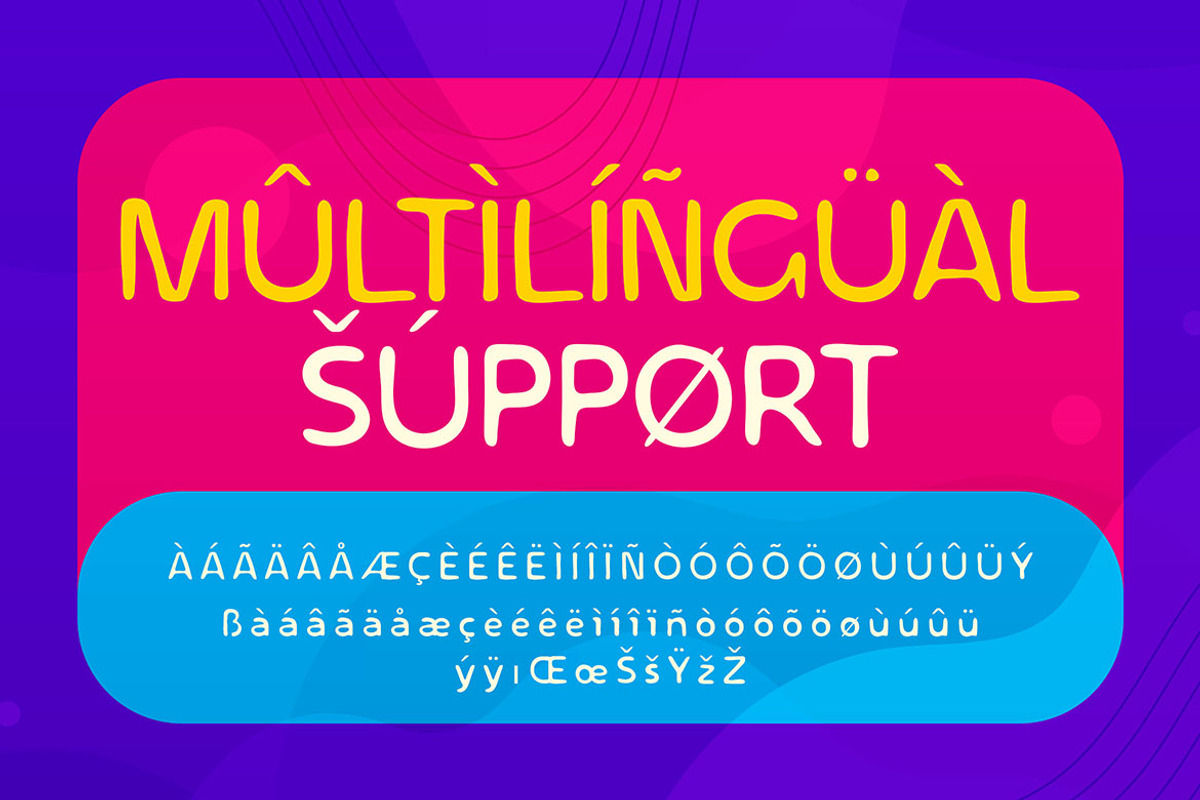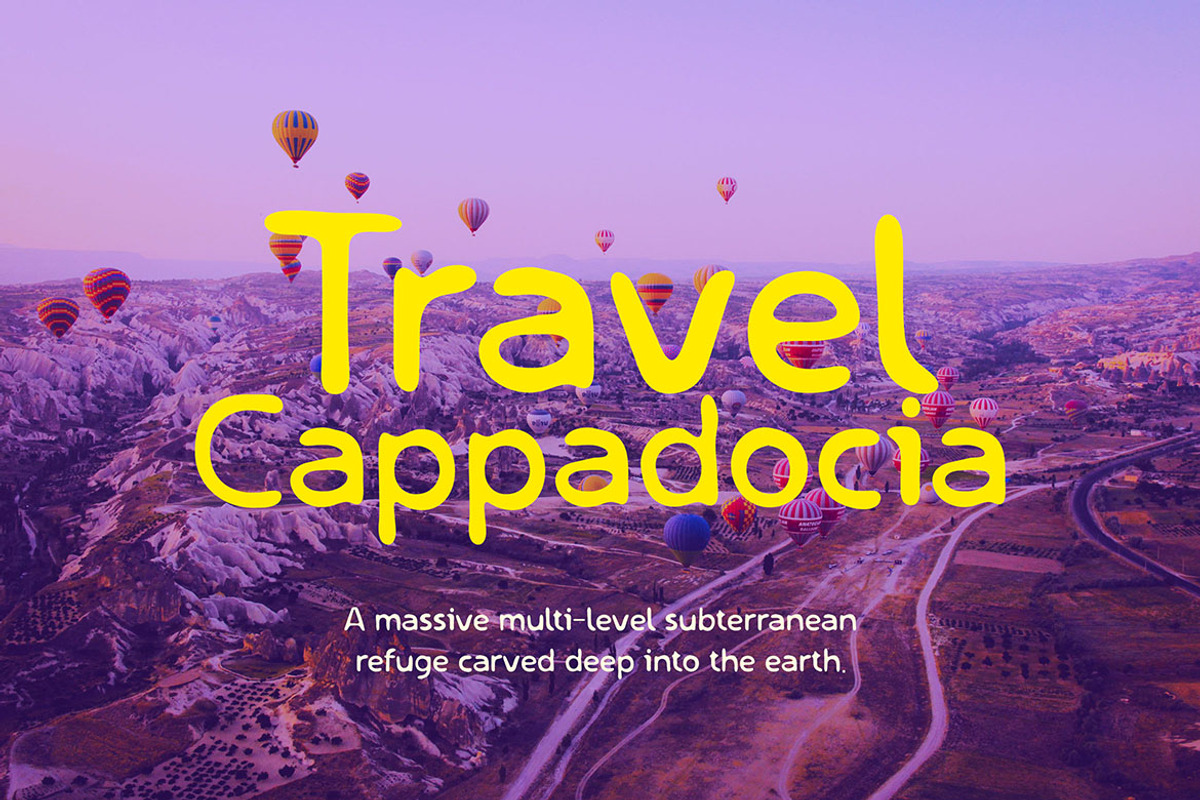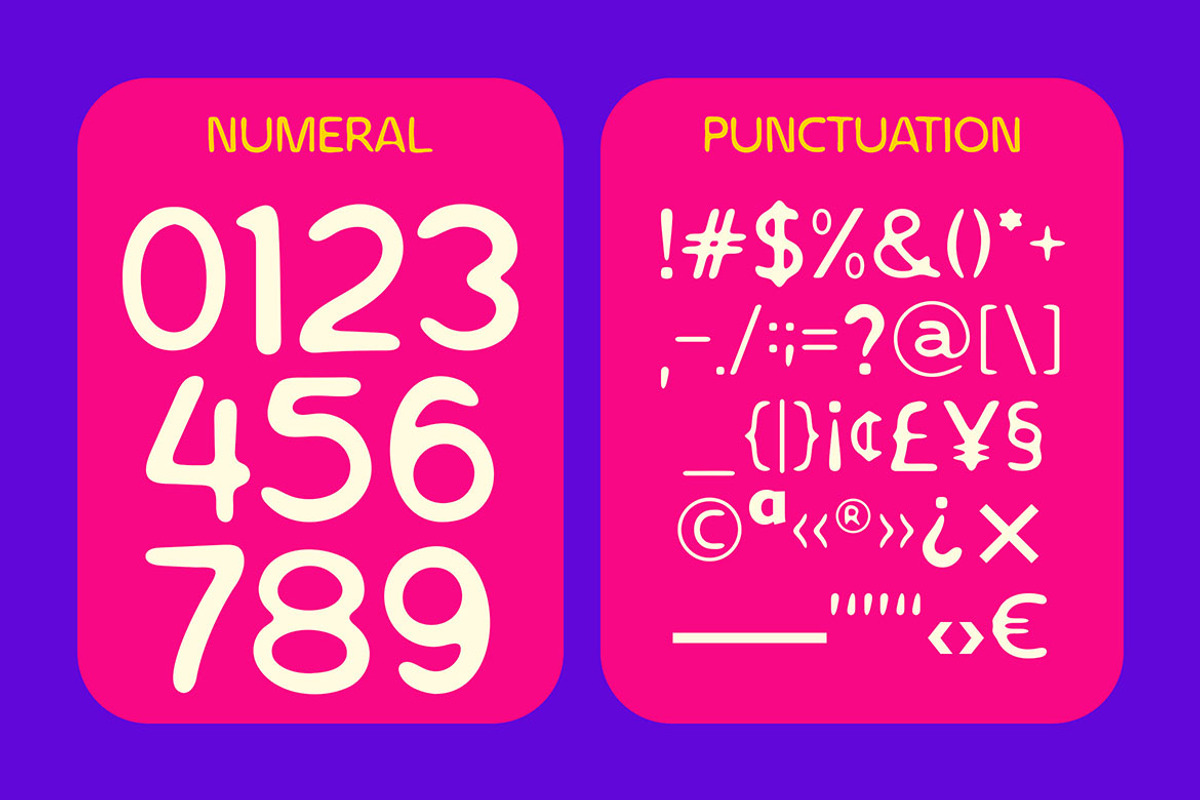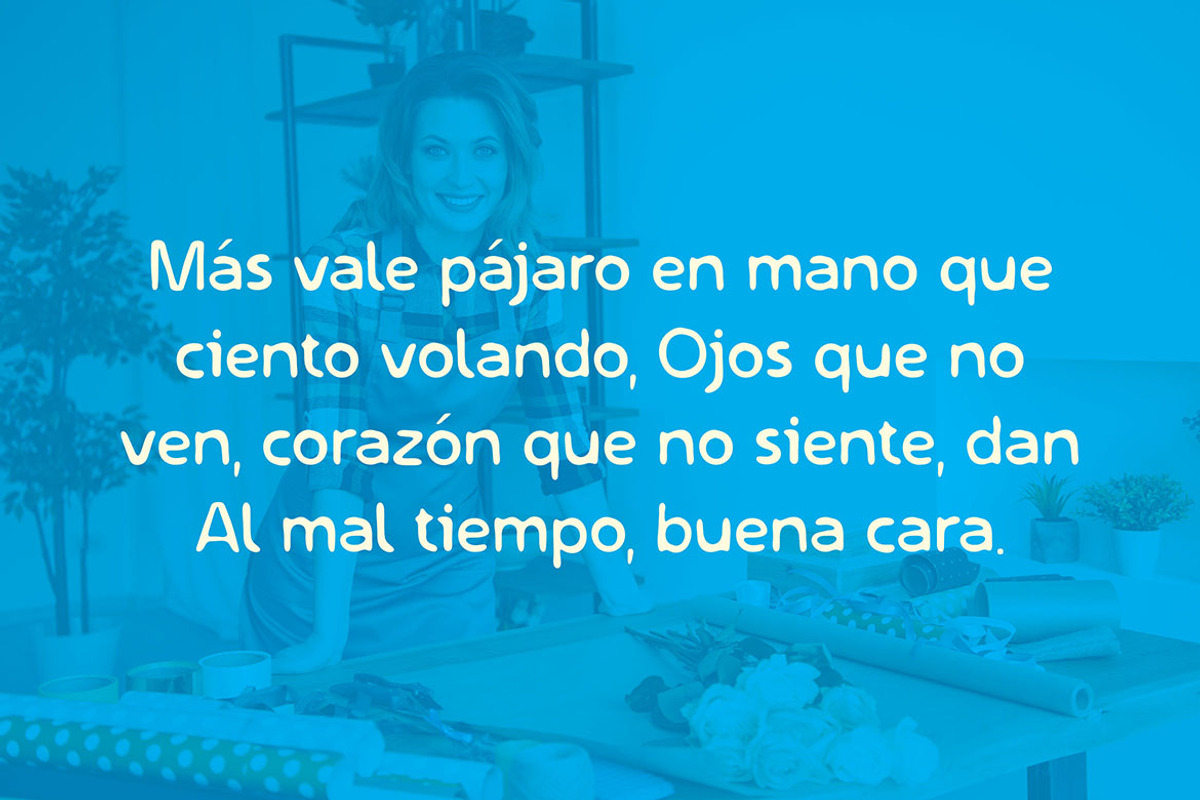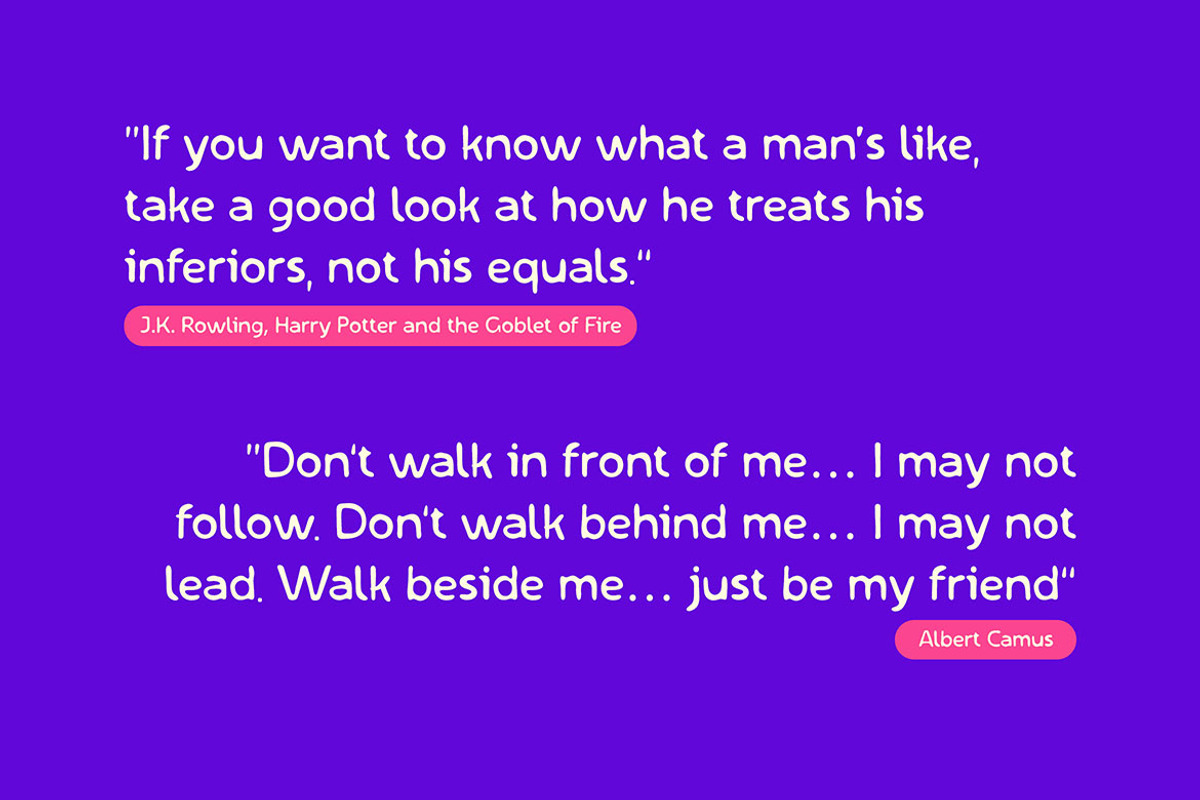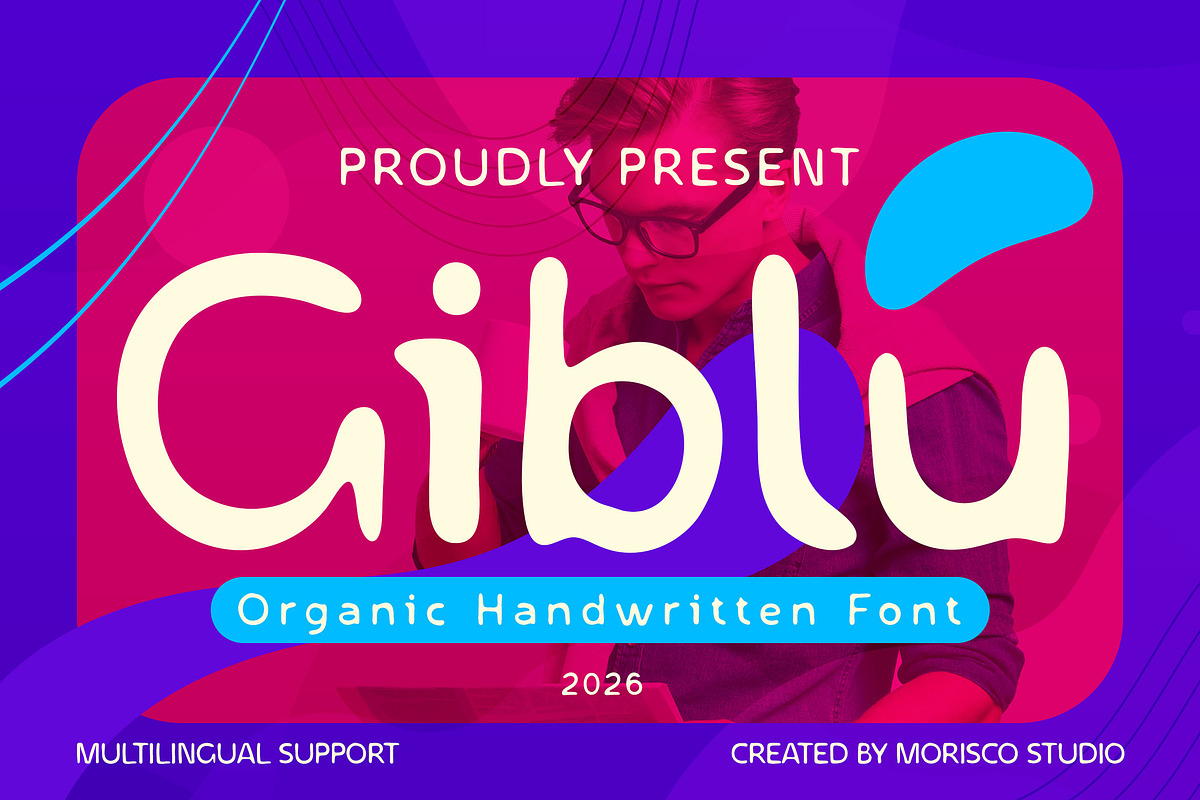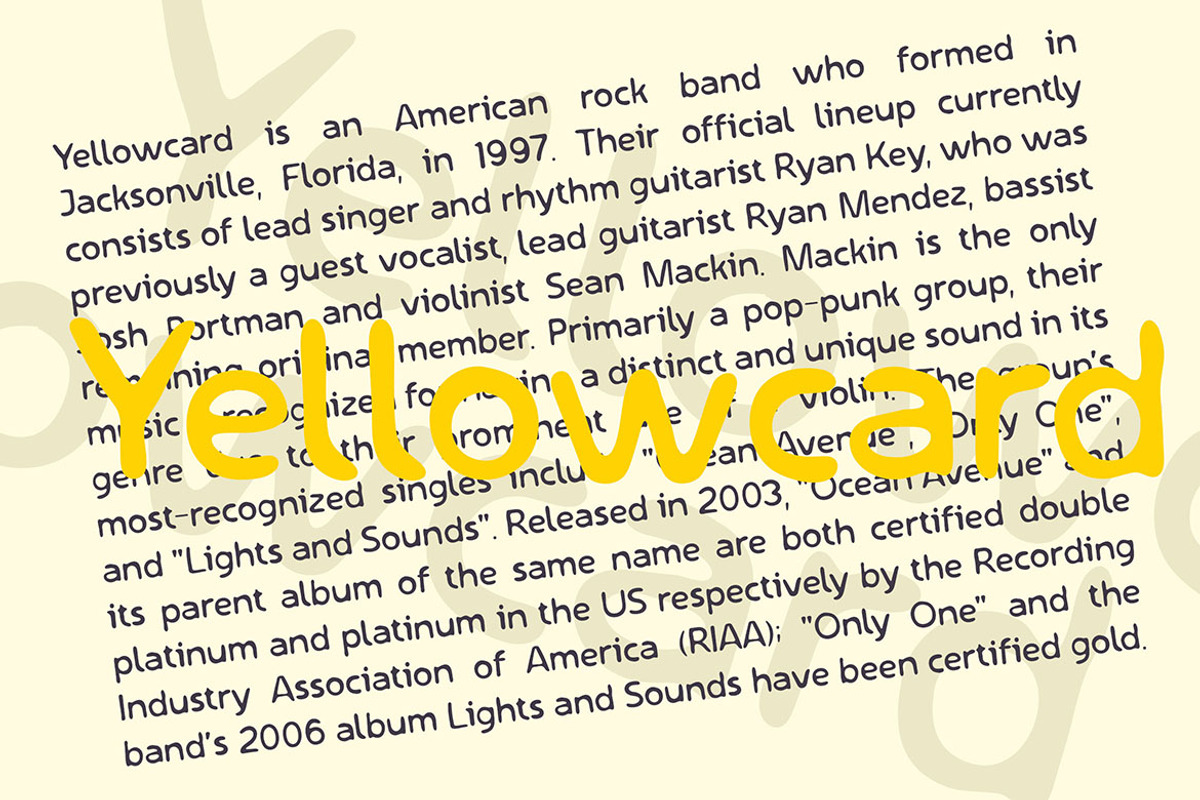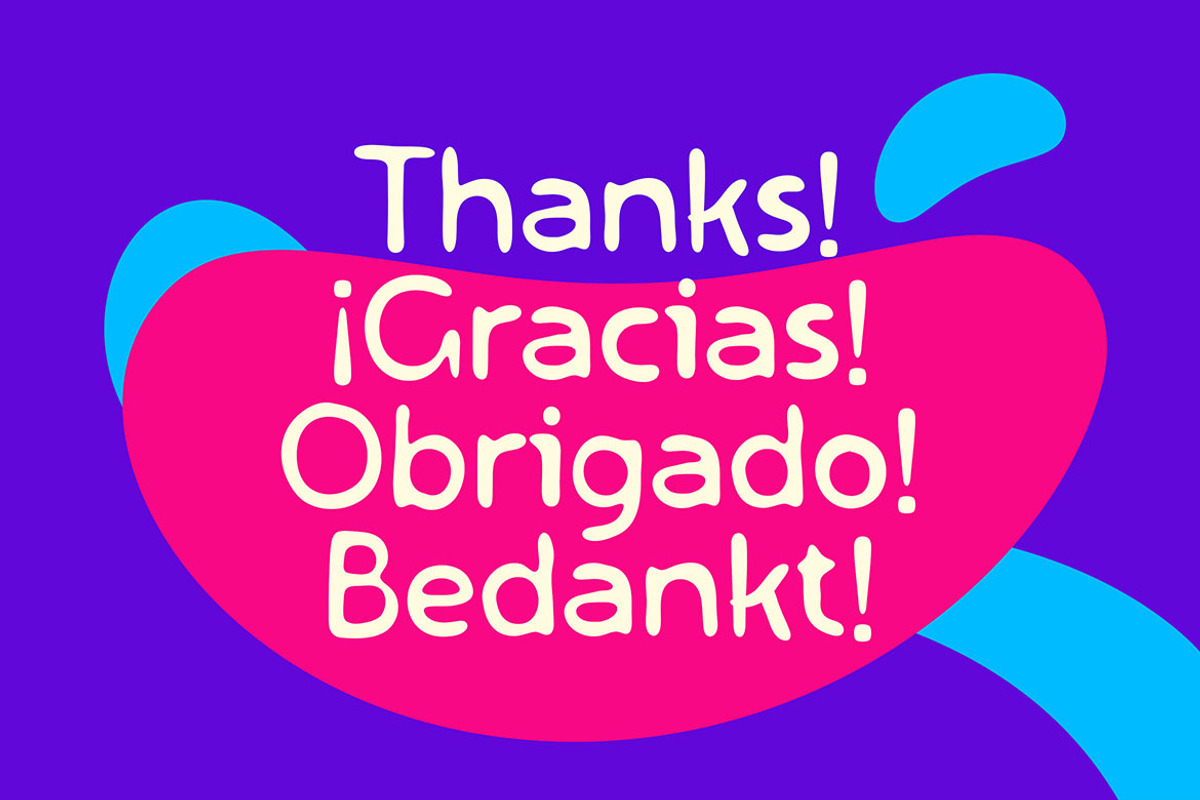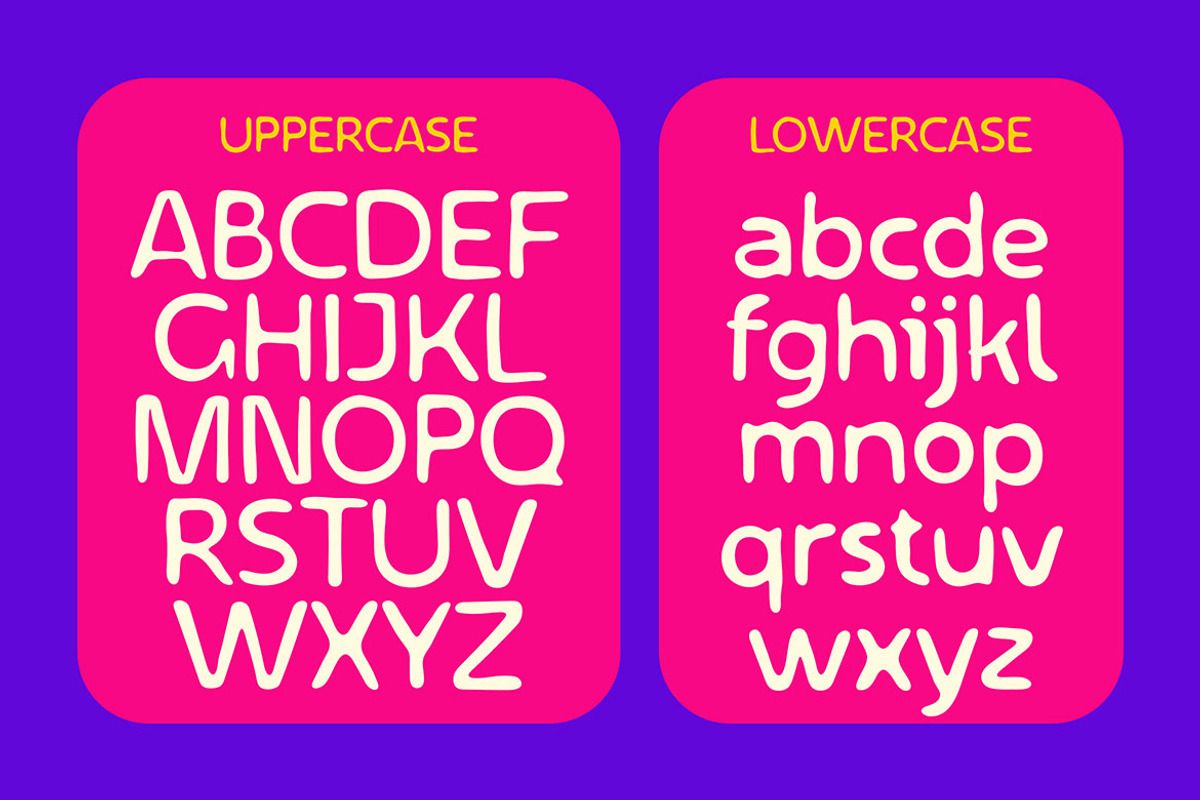
Giblu Organic Handwritten
Giblu is a handwritten font with a unique character designed by Morisco Studio. This typeface is well-suited for headlines and any project, like branding, print templates, logos, and more.
* Uppercase & Lowercase
* Symbols & Punctuation
* Multilingual Support